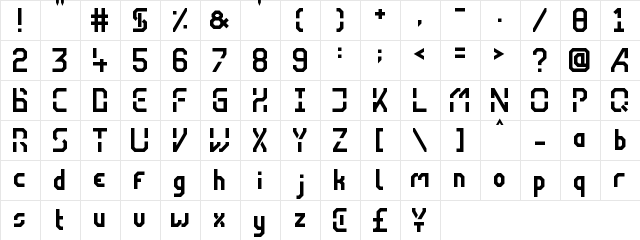
Velarah Regular Font Preview
Velarah Regular
Design Context for Velarah Typeface
Velarah is a composed and adaptable typeface that performs quietly and consistently across a wide range of design contexts.